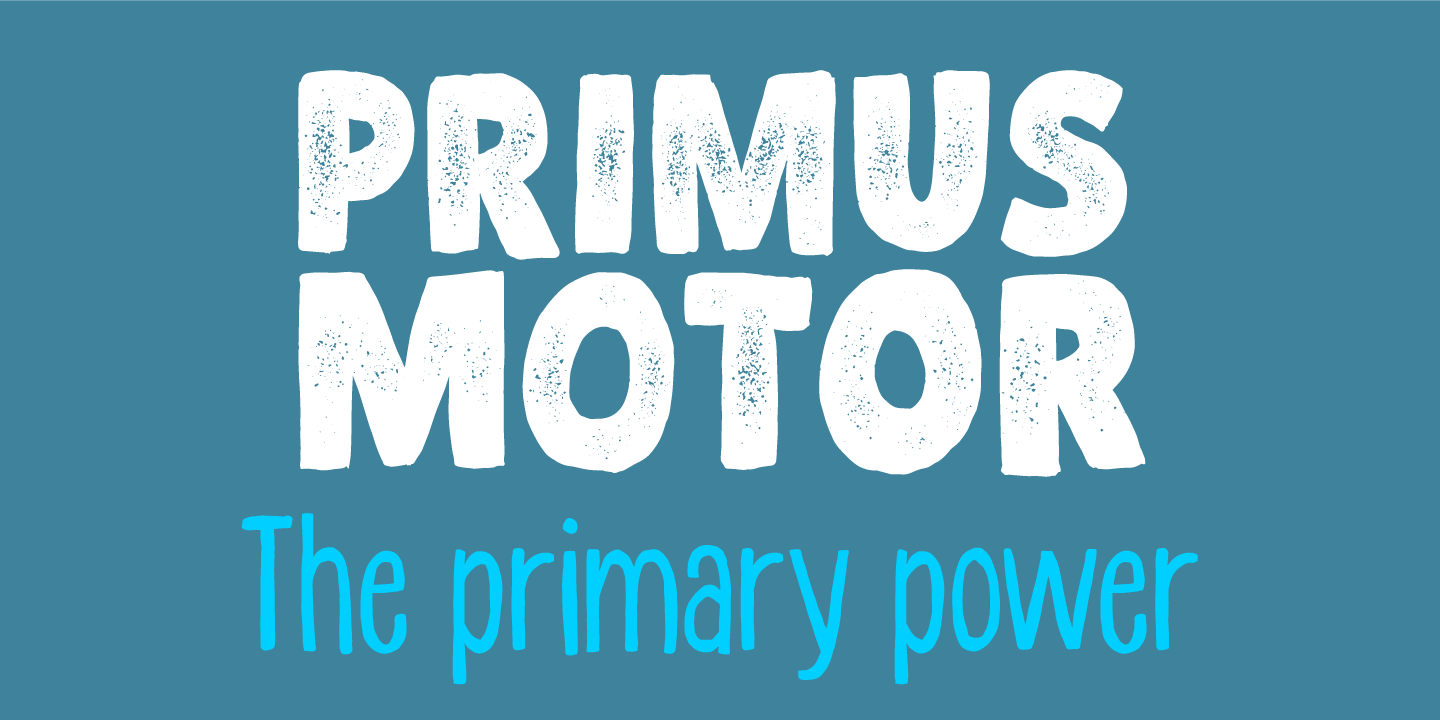
The Primus Motor Font excels in various design applications including premium automotive branding, luxury car dealership signage, high-performance racing communications, automotive engineering materials, classic car restoration identities, motor sports event promotions, premium motorcycle marketing, automotive parts packaging, racing team branding, and distinguished automotive projects that demand motor excellence and automotive sophistication.
What makes the Primus Motor Font exciting is its powerful embodiment of automotive excellence and mechanical precision through letterforms that capture the essence of high-performance engines and the sophisticated engineering that defines premium automotive culture. This typeface demonstrates exceptional power through carefully engineered characters that suggest the precise mechanics of quality motors, the dynamic energy of high-performance vehicles, and the technical mastery that makes automotive engineering so compelling and mechanically beautiful. The font's motor personality makes it perfect for automotive brands and racing organizations seeking to communicate engineering excellence, performance power, and the kind of mechanical sophistication that creates legendary automotive experiences through typography that literally runs with motor-driven precision.
The Primus Motor Font family typically includes powerful weight variations that enhance the automotive aesthetic, featuring dynamic styling options and extended character sets optimized for automotive communications and racing applications. These family options often include motor-inspired alternates, automotive symbols, and racing decorative elements that provide designers with comprehensive tools for creating authentically automotive typography that celebrates mechanical excellence while maintaining contemporary design appeal and automotive credibility.
Automotive professionals and racing organizations consistently choose Primus Motor Font Free Download for projects requiring typography that communicates automotive authenticity and motor excellence. This typeface delivers exceptional performance in automotive marketing, racing branding, and mechanical communications where establishing credibility and demonstrating engineering expertise is essential for enthusiast engagement. The font's motor character makes it particularly effective for racing and luxury vehicle applications. Download Primus Motor Font Free Download today to access this powerful typeface that transforms automotive communications with its motor precision and mechanical sophistication, creating compelling automotive experiences that honor the magnificent engineering of high-performance motors while celebrating the technical excellence that defines authentic automotive culture and racing achievement.